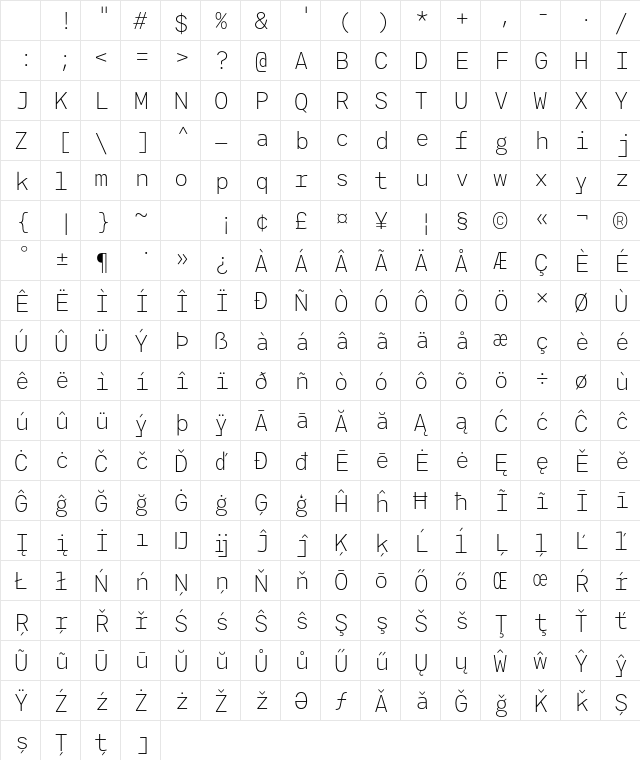
Complete Agyx Mono Extralight Regular glyph index. Displaying only characters natively supported by Agyx Mono Extralight Regular font.
Agyx Mono Extralight uses fixed-width spacing throughout, giving it the structured, systematic character associated with coding environments and technical documentation. Its slender proportions lend an understated elegance to any composition.
Pro Tip: Use Agyx Mono Extralight with slightly increased line-height for extended reading - fixed-width spacing can feel dense in longer passages without extra breathing room.